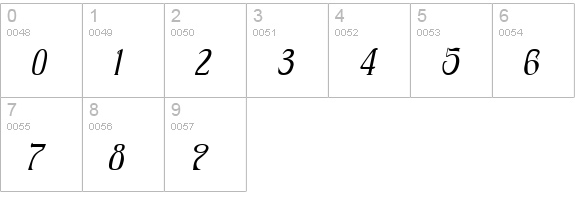
Deco-Condensed Italic is a distinctive, condensed-width, italic variant in the Deco typeface family \xE2\x80\x94 well suited to design and typography projects.
The Deco-Condensed Italic font exudes elegance and sophistication with its sleek and modern design. Its slanted and condensed form adds a touch of flair and style to any text, making it perfect for fashion magazines, luxury branding, and high-end design projects. The italicized characters give a dynamic and energetic feel to the text, making it stand out and grab attention. What sets this font apart is that it is not only visually stunning but also freely available for download. You can easily access the Deco-Condensed Italic font at FontsMarket.com, where you can incorporate its unique charm into your projects with ease. Whether you are looking to add a touch of class to your designs or make a bold statement, this font is sure to elevate your work to the next level. Download it today and unleash your creativity with the Deco-Condensed Italic font.